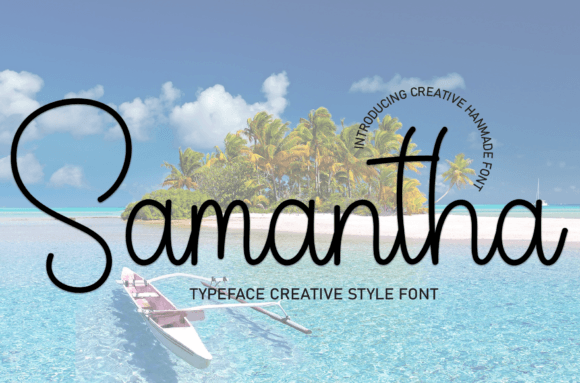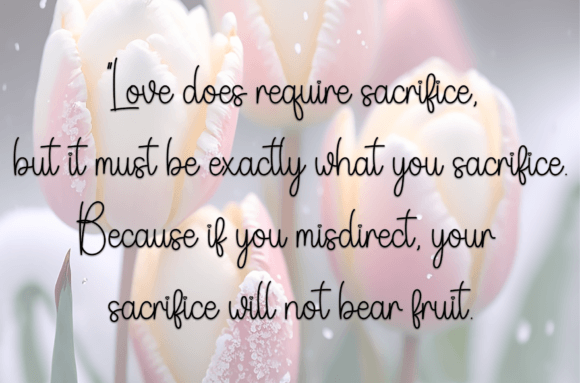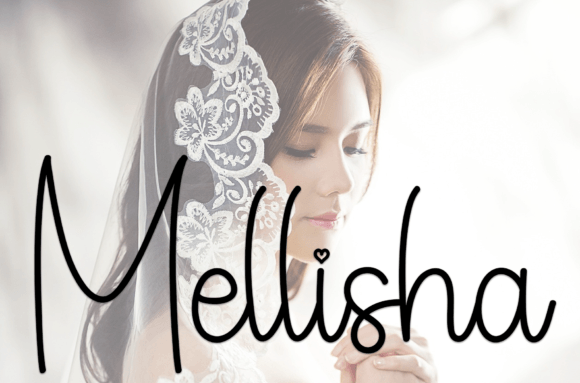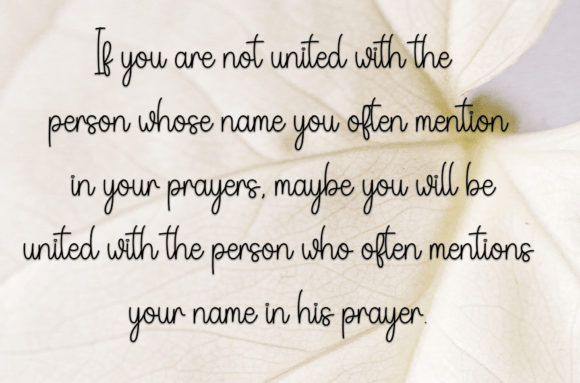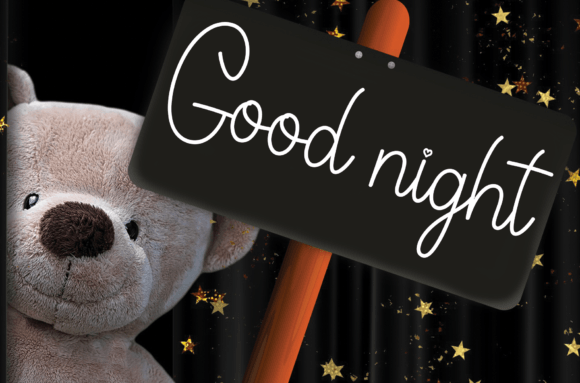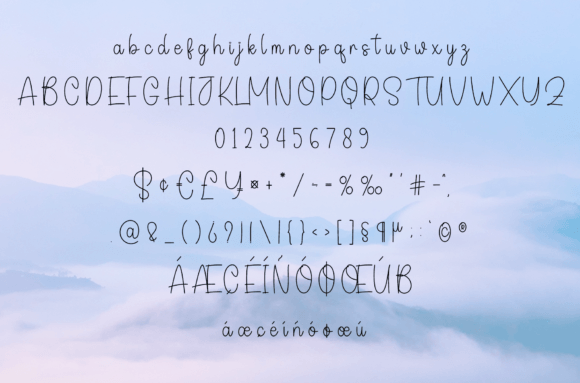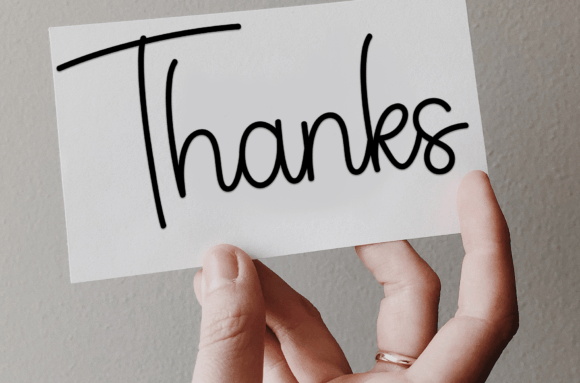
Samantha Font
What Is Samantha Font?
Samantha Font is a sweet, friendly handwritten script designed to bring a warm and personal feel to your creative projects. Each letter features smooth, rounded strokes that feel playful yet polished. This combination of charm and clarity makes Samantha Font ideal for any design that needs a genuine, handcrafted look.
The font blends modern simplicity with a touch of whimsy, so it adapts beautifully to both casual and professional uses.
Samantha Font is highly versatile and perfect for many applications. For example, it looks stunning on wedding invitations and save-the-date cards. Its gentle curves set a romantic tone and make your event materials feel special and thoughtful.
You can also use it on greeting cards for birthdays, holidays, or any celebration. The handwritten style adds sincerity and helps your message connect on a personal level.
Small businesses and creative brands love using Samantha Font in logos and packaging. Whether you run a boutique, a bakery, or a handmade shop, this typeface helps your brand look friendly and approachable.
In digital designs, Samantha Font shines on social media graphics. Quotes, announcements, and promotions gain extra charm and stand out more in feeds crowded with generic text.
Additionally, this font works wonderfully for crafts, DIY projects, and personalized gifts. From stickers to labels, Samantha Font brings a sweet, cohesive touch to every detail.
Why Should You Choose Samantha Font?
One of the best reasons to choose Samantha Font is its readability. Even with its playful style, each letter stays clear and easy to read, whether you use it large or small.
Another advantage is how seamlessly it works with other fonts. You can pair Samantha Font with clean serif or sans-serif typefaces to balance its decorative script and keep your designs neat.
Designers also love that Samantha Font is simple to use and saves time. Each glyph is carefully crafted to look polished straight out of the box.
Samantha Font instantly makes your work feel more authentic and engaging. The smooth, flowing letters help you share ideas in a way that feels personal and warm. This connection helps build trust and leaves a positive impression on your audience.
Its playful style adds life and energy to your layouts. Even minimalist designs feel more unique and expressive with a touch of Samantha Font.
Choosing a high-quality handwritten script shows you value detail and creativity. Clients and customers will notice this effort, which strengthens your brand’s image and sets your work apart.
Samantha Font is more than a cute handwritten script—it’s a creative tool that helps you bring ideas to life with style and sincerity. From wedding invitations to logos and social media content, this font adapts to many uses and always makes a delightful impact.